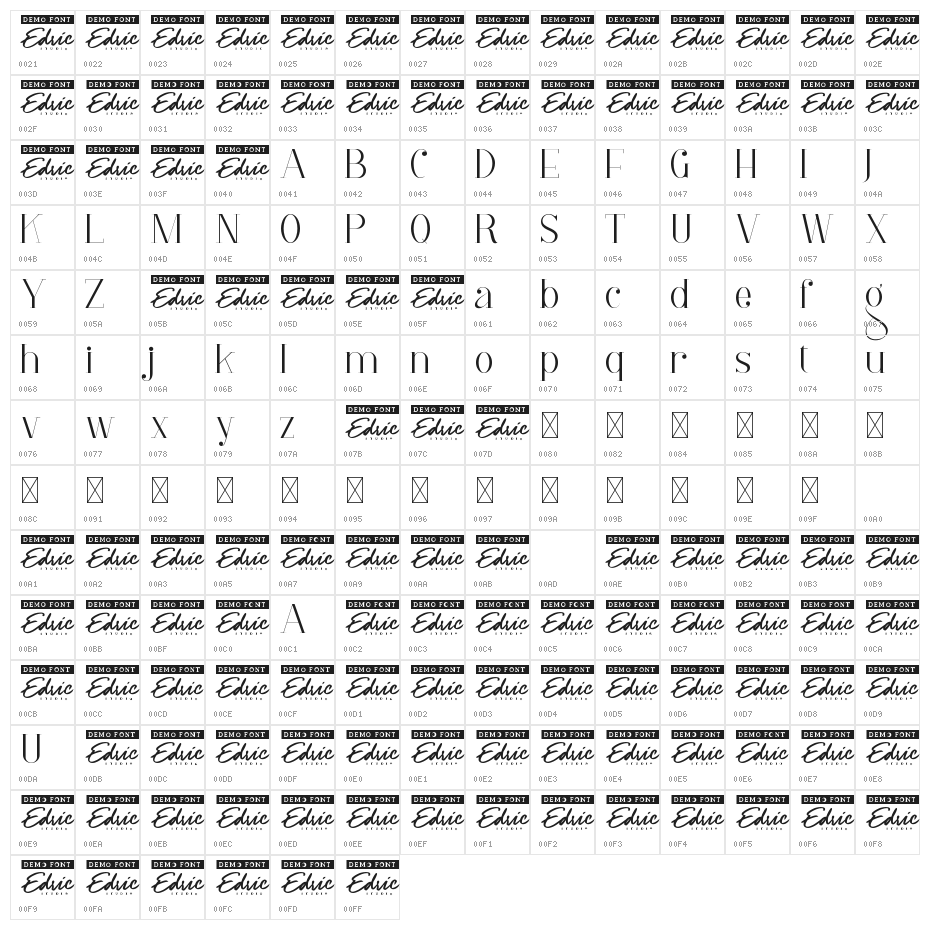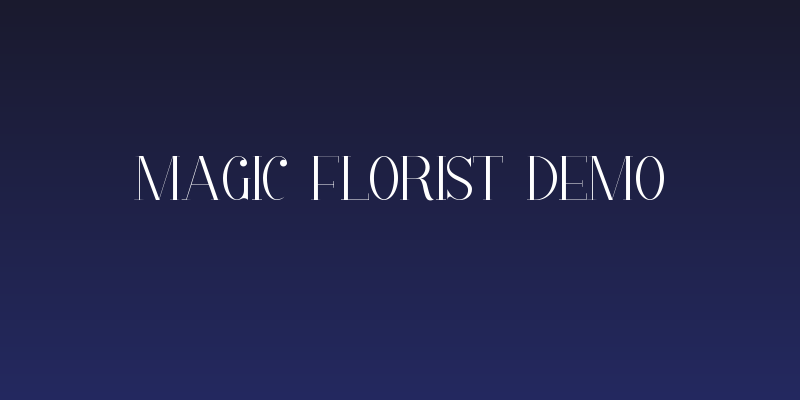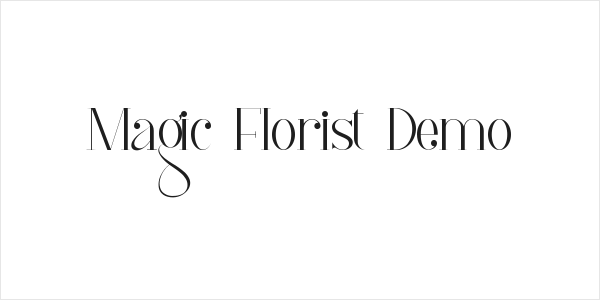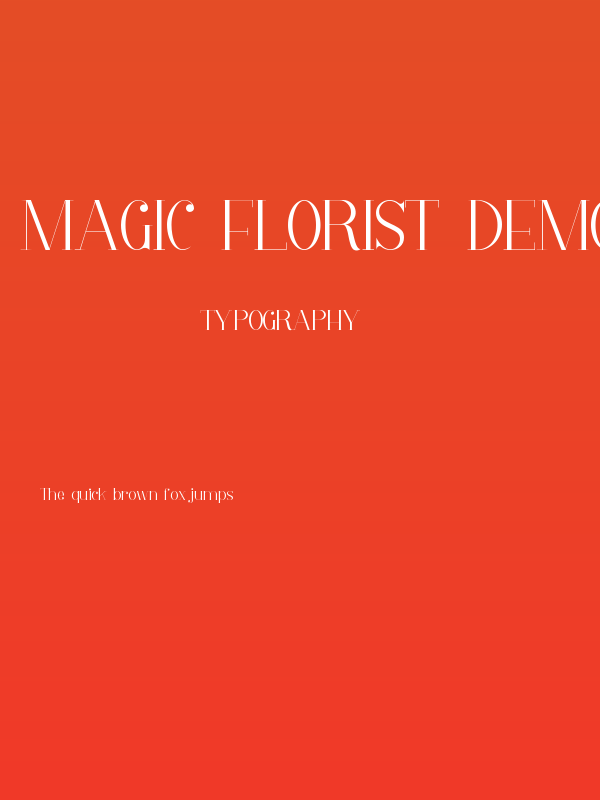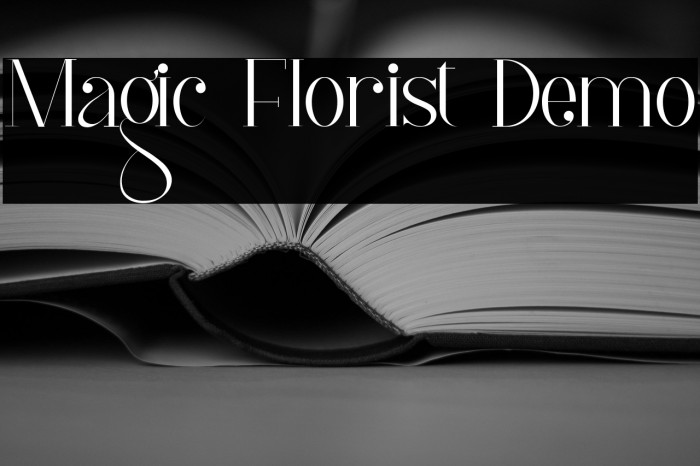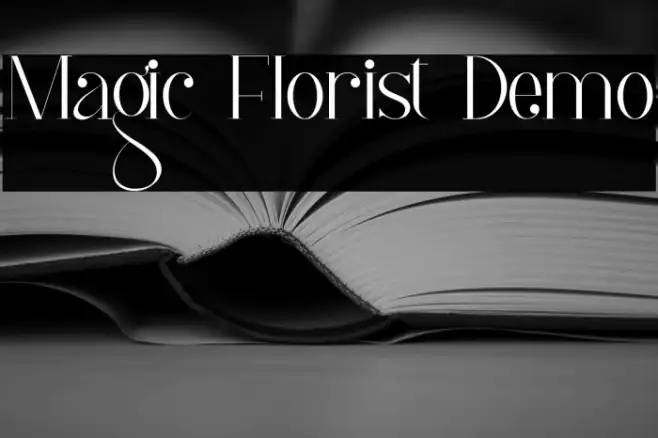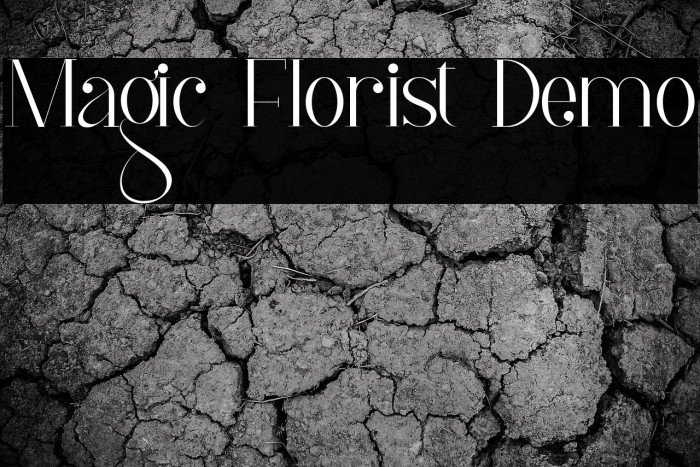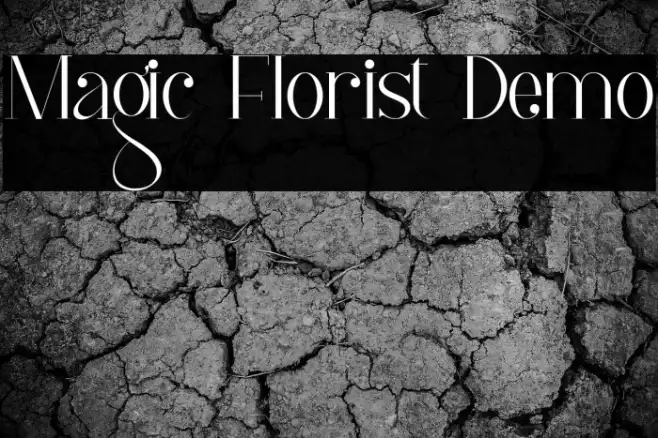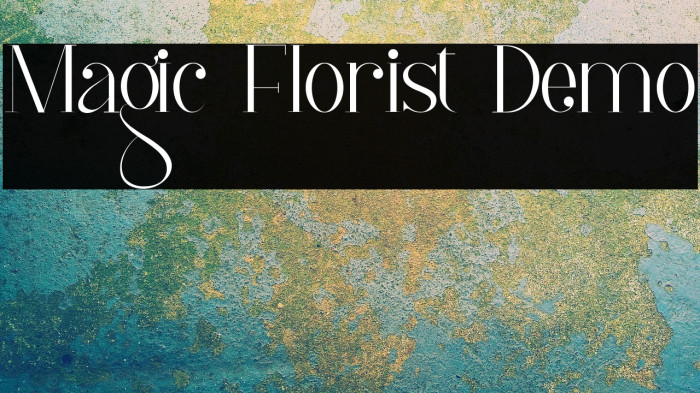
Magic Florist Demo Font
Magic Florist Demo Description
This font features a sophisticated and elegant design, characterized by its high contrast between thick and thin strokes. The uppercase letters exhibit a tall and slender appearance, while the lowercase letters maintain a graceful and flowing style. The font includes unique elements such as swashes and decorative loops, particularly in letters like 'g', 'j', and 'y'. The overall look is both modern and classic, making it versatile for various design needs. The special characters are designed with the same attention to detail, ensuring consistency across all glyphs.
| Proposed Projects | Ideal for luxury branding, wedding invitations, fashion magazines, and high-end product packaging. |